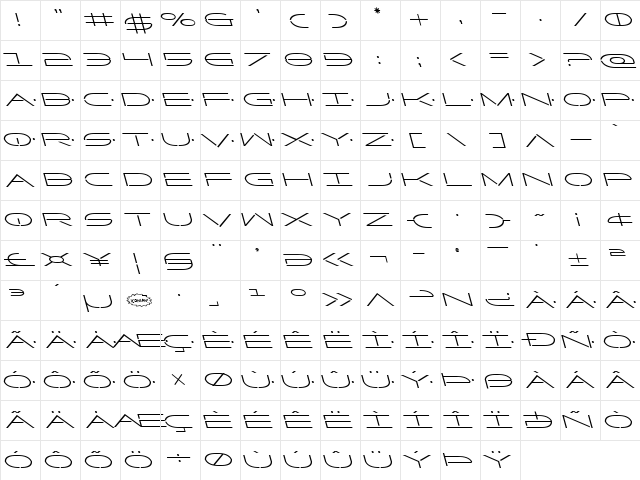
Factor Leftalic Italic
Design Context for Factor Leftalic Typeface
Factor Leftalic takes a measured approach to typography — its balanced proportions and neutral character make it a reliable workhorse for both digital and print work. Its italic angle brings a sense of urgency and motion to the letterforms.
Pro Tip: Try Factor Leftalic for annotation and caption copy alongside an upright companion — the contrast in angle creates a dynamic but ordered typographic system.